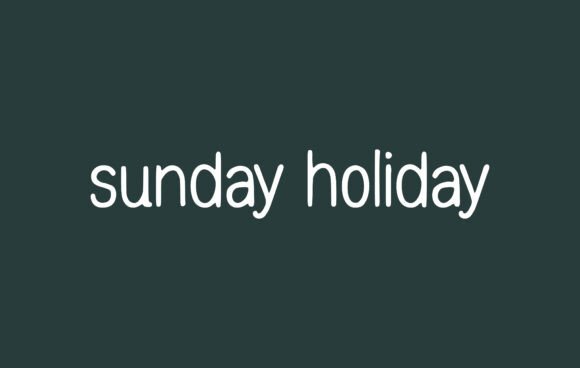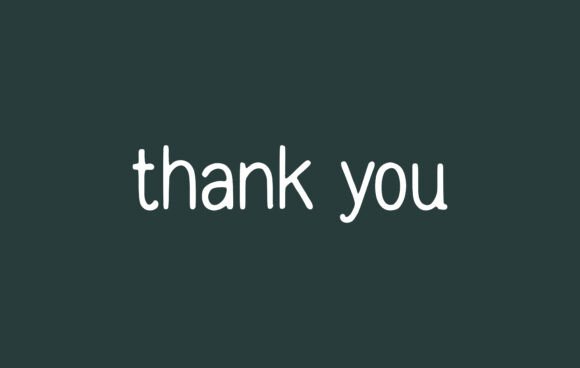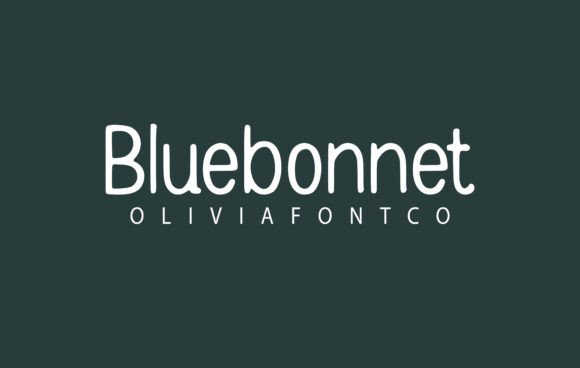
The Bluebonnet Font: A Romantic Touch for Your Creative Projects
I’ll never forget the time I was working on a wedding invitation design project, and my client asked me to create a beautiful, elegant title that would set the tone for the entire event. I scoured the internet for the perfect font, but nothing seemed quite right. That was until I stumbled upon the Bluebonnet font. With its romantic touch and authentic handwritten feel, it was love at first sight! 💕
An Honest Review of Bluebonnet Font
As a designer, I’m always on the lookout for fonts that can elevate my creative projects. Here’s what I love about Bluebonnet font:
• ✨ Legibility: Bluebonnet font is incredibly easy to read, making it perfect for both title and body text.
• ✅ Romantic touch: The font’s handwritten feel adds a touch of elegance and sophistication to any design.
• 💫 Versatility: Bluebonnet font looks great in a variety of design applications, from magazine headlines to social media graphics.
While Bluebonnet font is an excellent choice, it’s not without its quirks. Here are a few things to keep in mind:
• 🤔 Limited character set: While the font has a wide range of characters, it may not have every special character or glyph you need.
• ⚠️ Kerning issues: As with any font, you may need to adjust the kerning to ensure that the text looks its best.
The Story Behind Bluebonnet Font
The Bluebonnet font was designed by a talented typographer who wanted to create a font that would evoke the feeling of a warm, handwritten letter. Inspired by the beauty of nature and the elegance of handwritten script, the Bluebonnet font was born. With its authentic, handwritten feel and romantic touch, it’s no wonder that this font has become a favorite among designers and crafters.
What is the Bluebonnet font? The Bluebonnet font is an authentic handwritten font with a romantic touch.
Is the Bluebonnet font legible? Yes, the Bluebonnet font is incredibly legible, making it perfect for both title and body text.